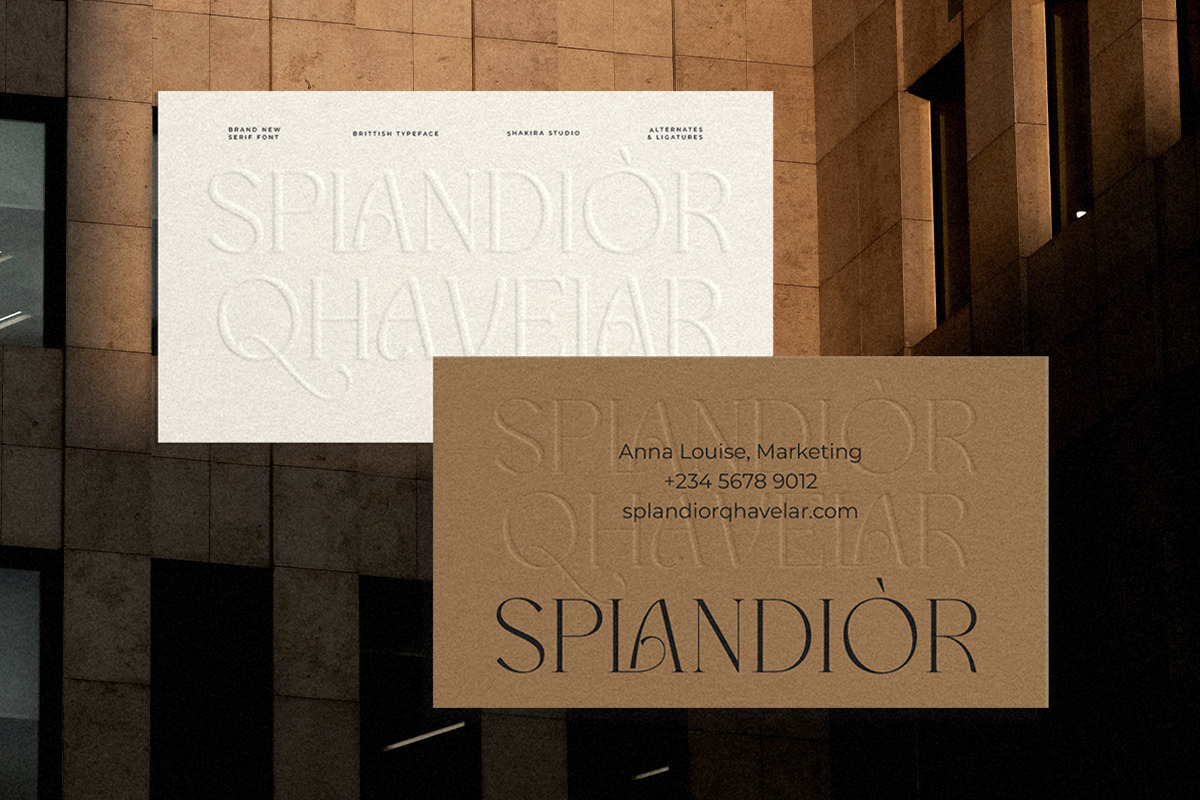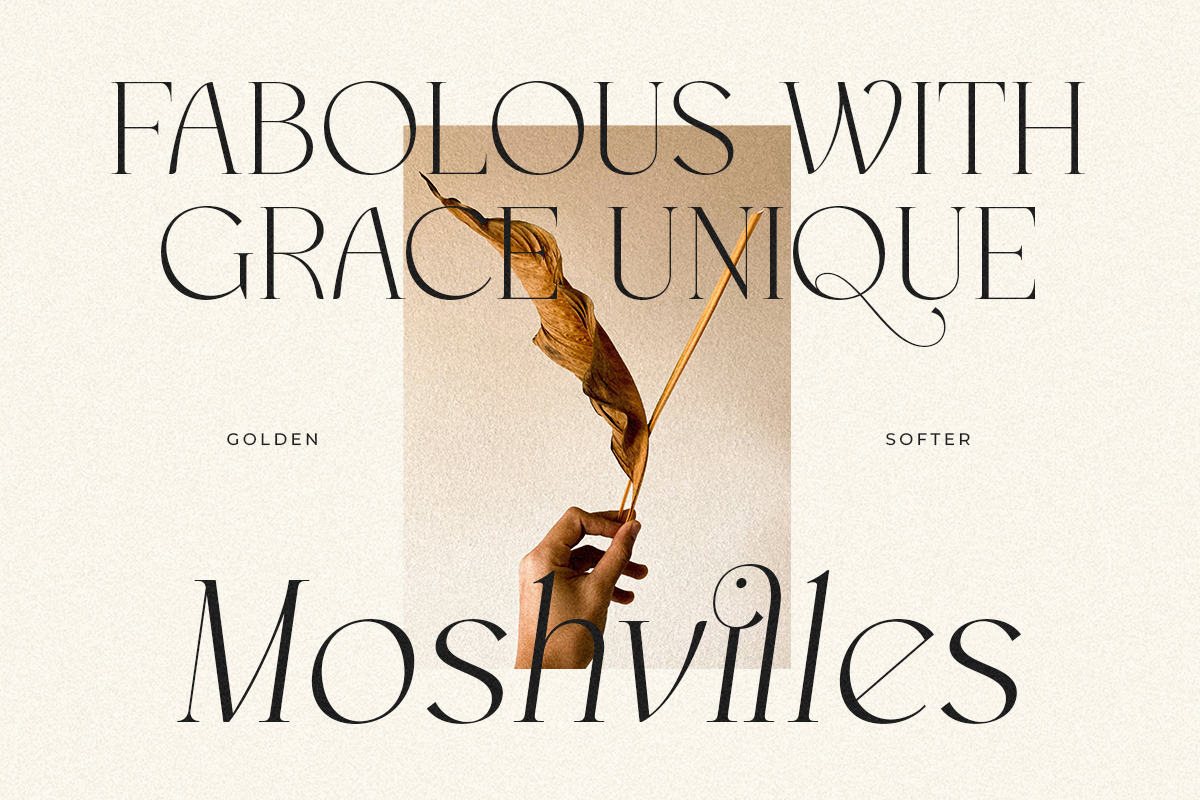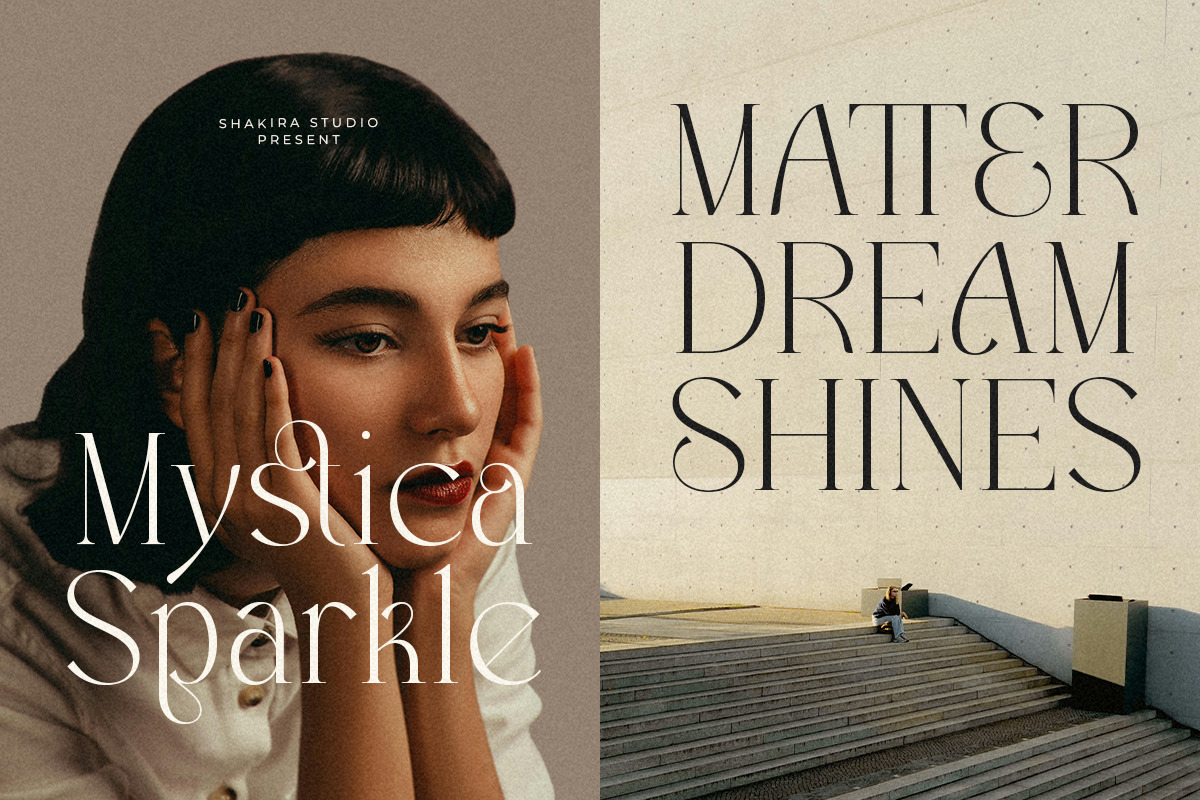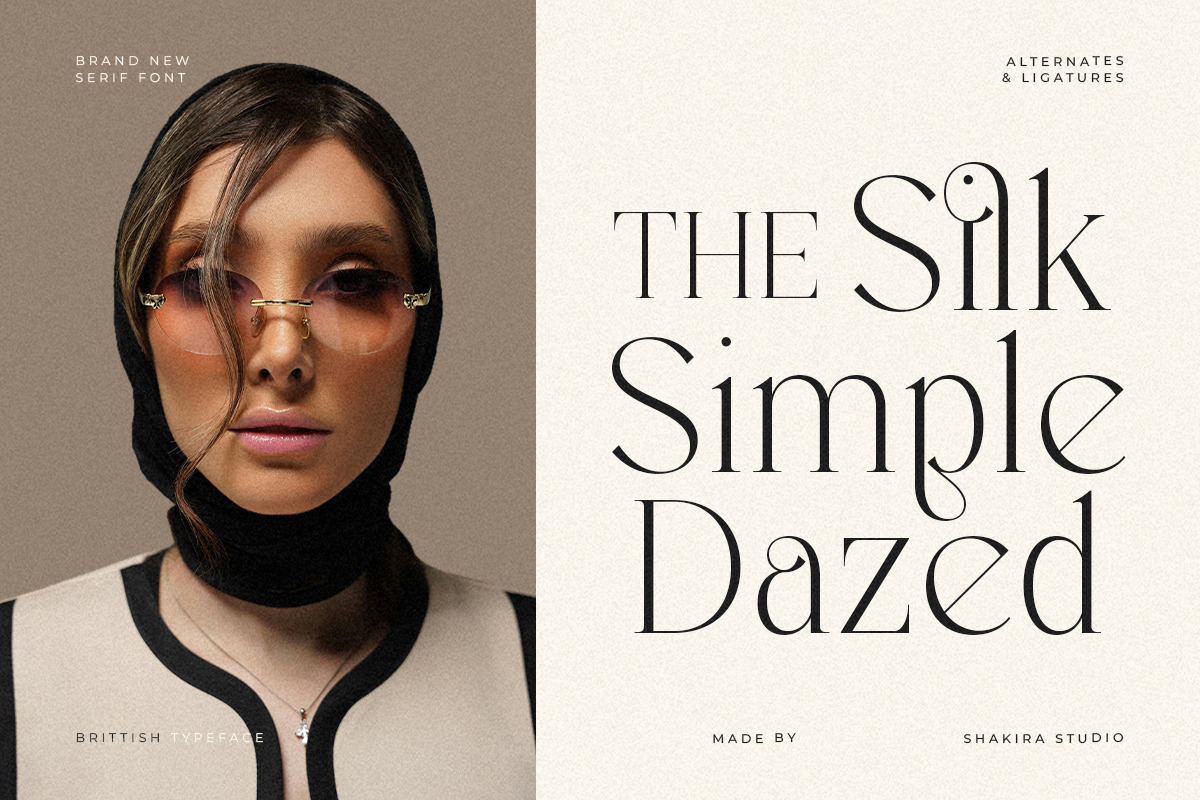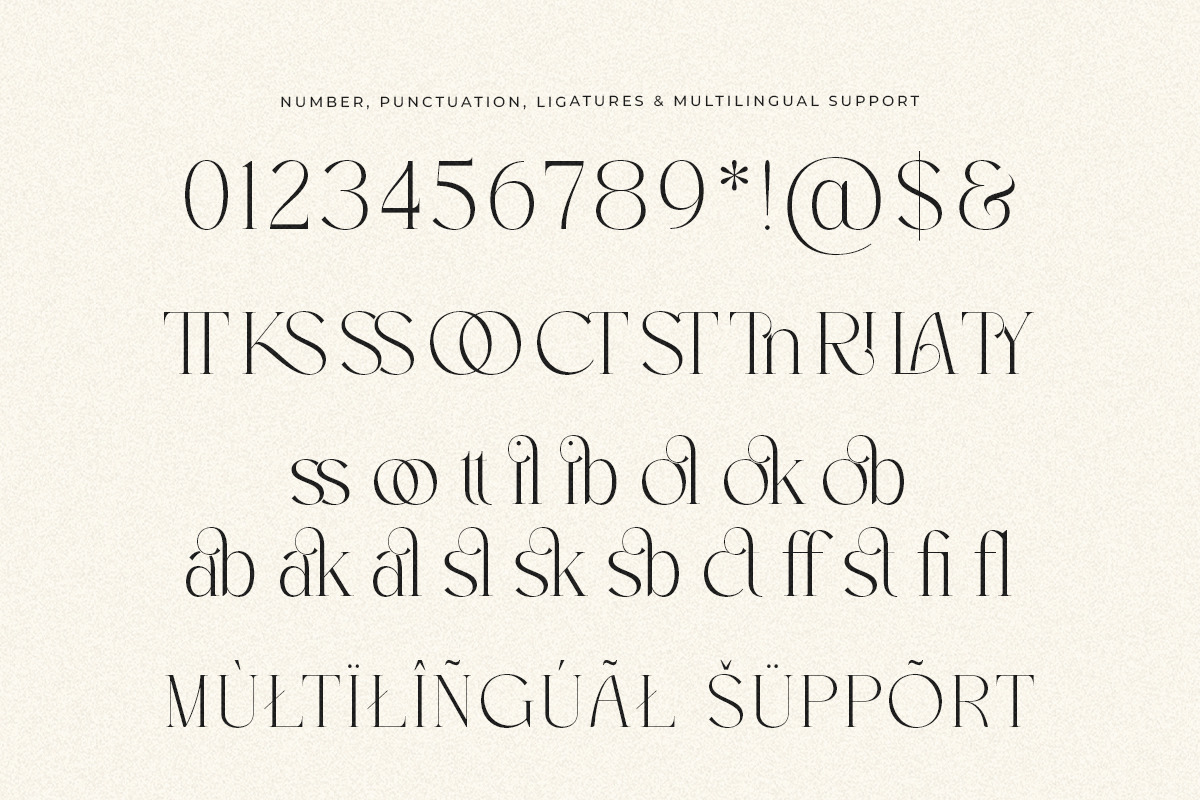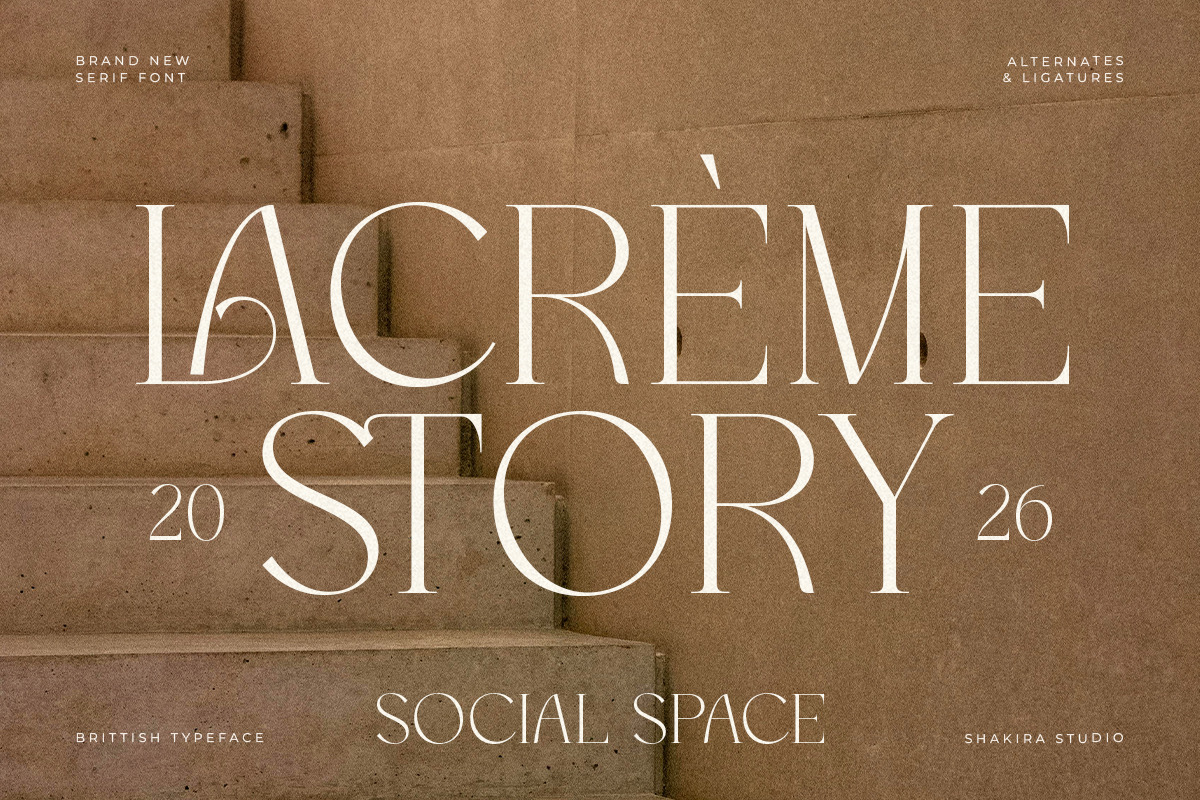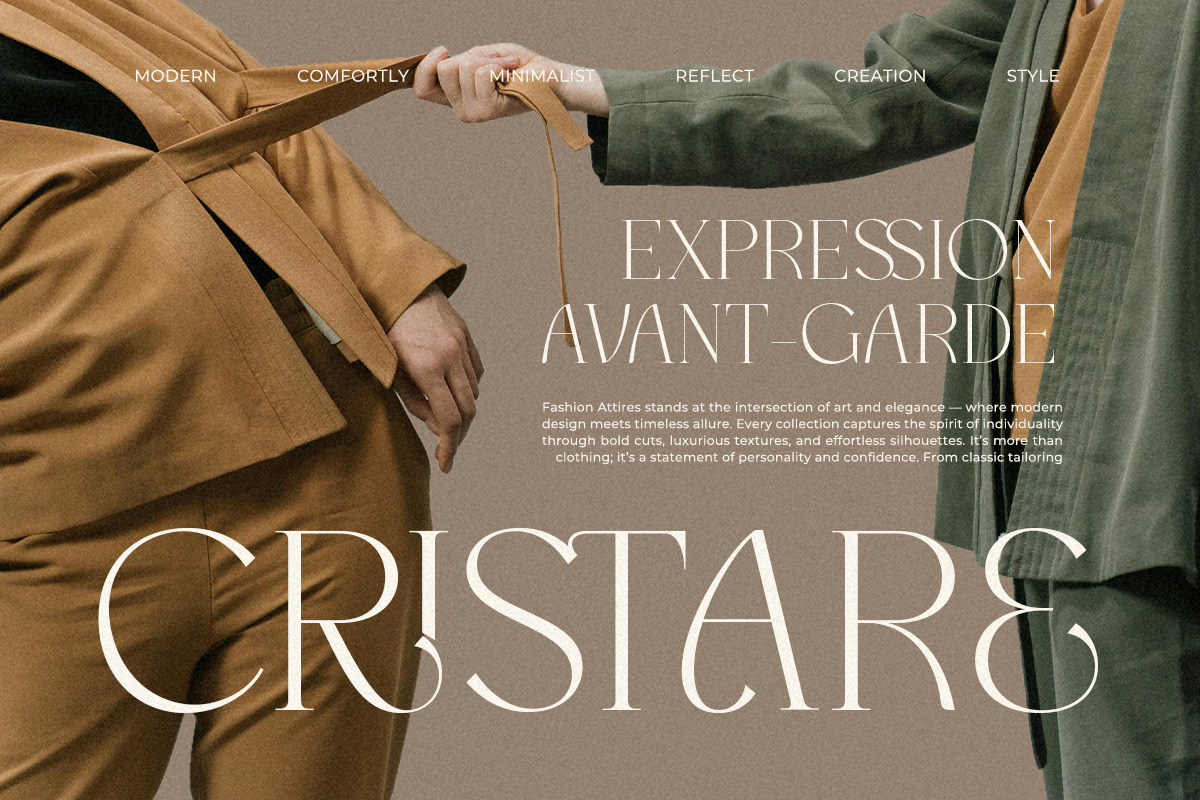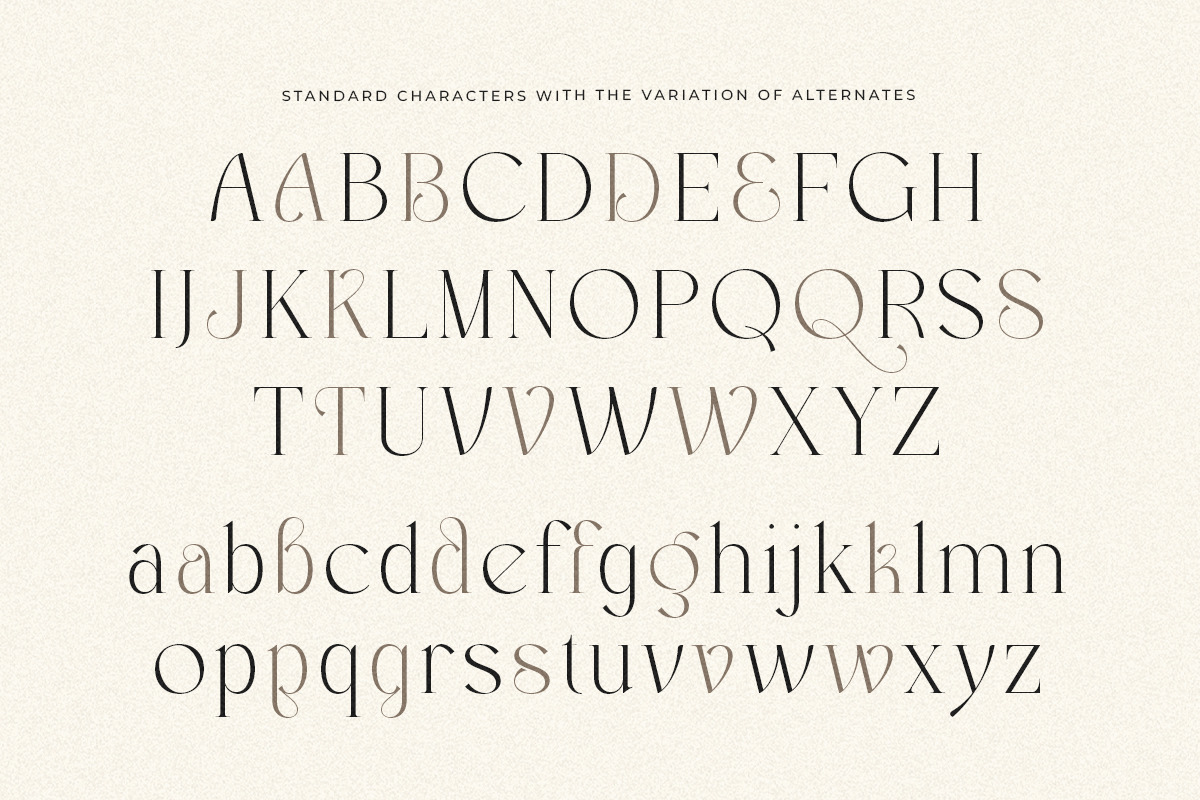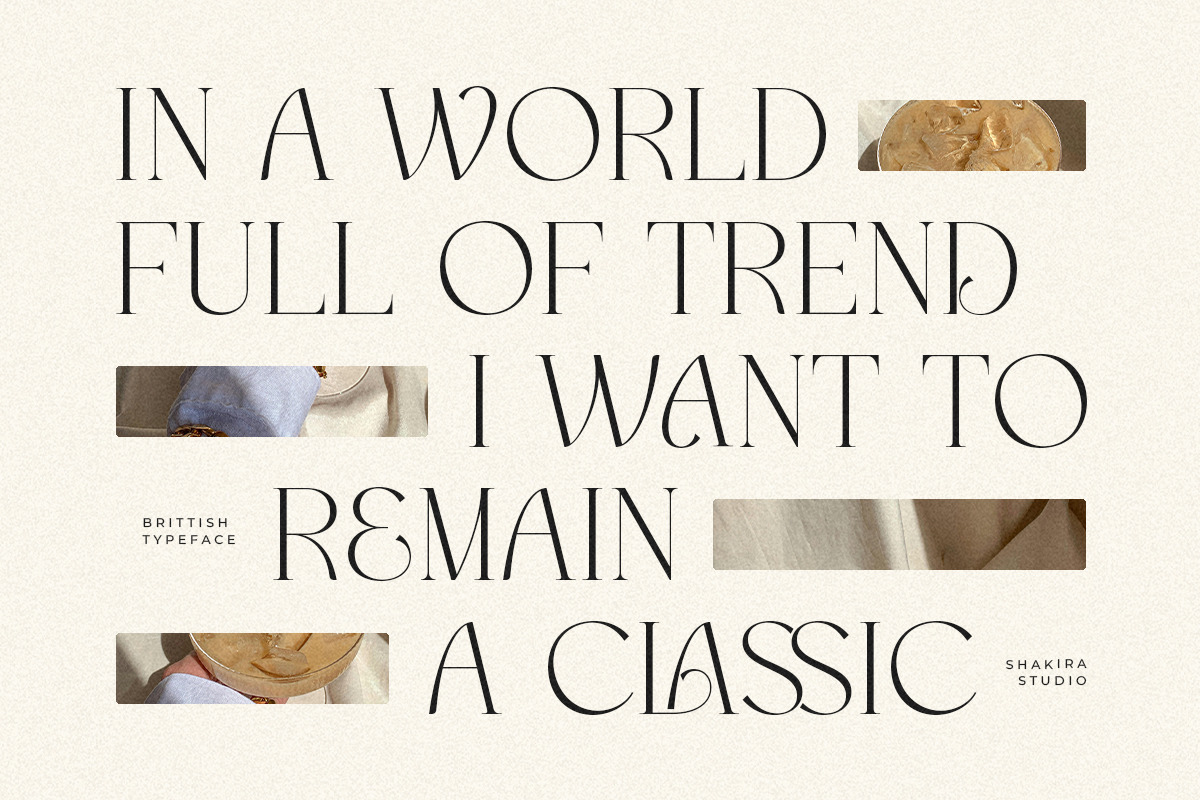
Brittish - Modern Luxury Display
Introducing Brittish, a modern luxury display serif font designed for bold elegance and editorial clarity. With its tall proportions and refined contrast, Brittish creates a strong visual identity while maintaining a clean and sophisticated look.
Perfect for fashion brands, magazines, luxury packaging, and modern editorial design.
- Regular & Italic
- Alternates and ligatures
Perfect For Fashion editorials, luxury branding, magazines, premium logos, lifestyle brands, posters, and modern typography projects.